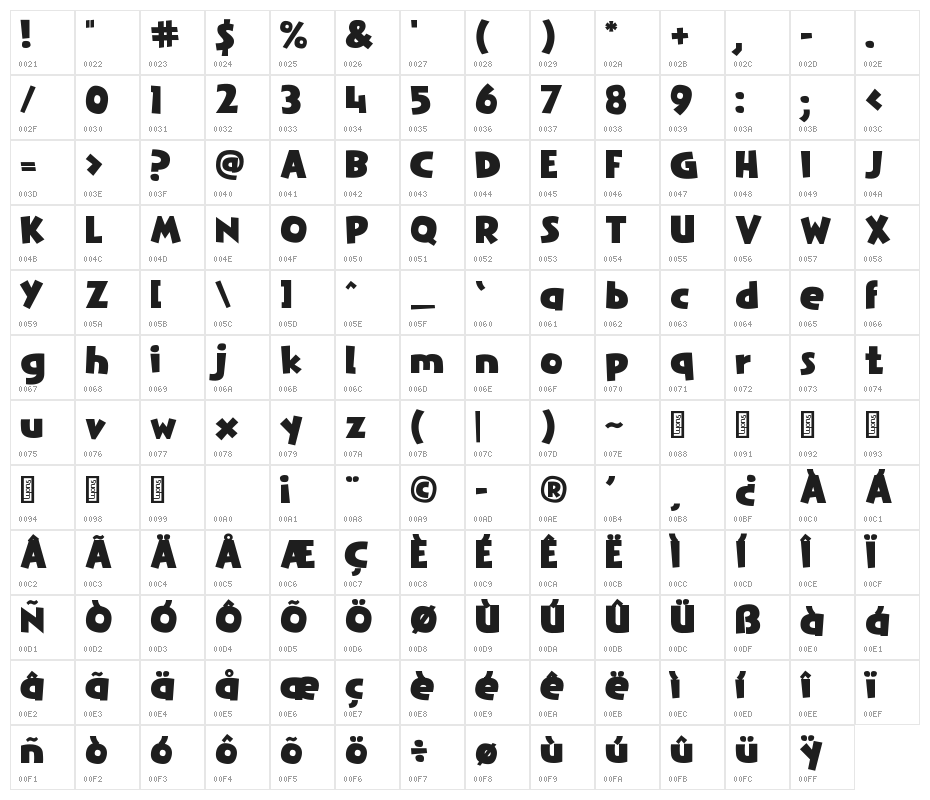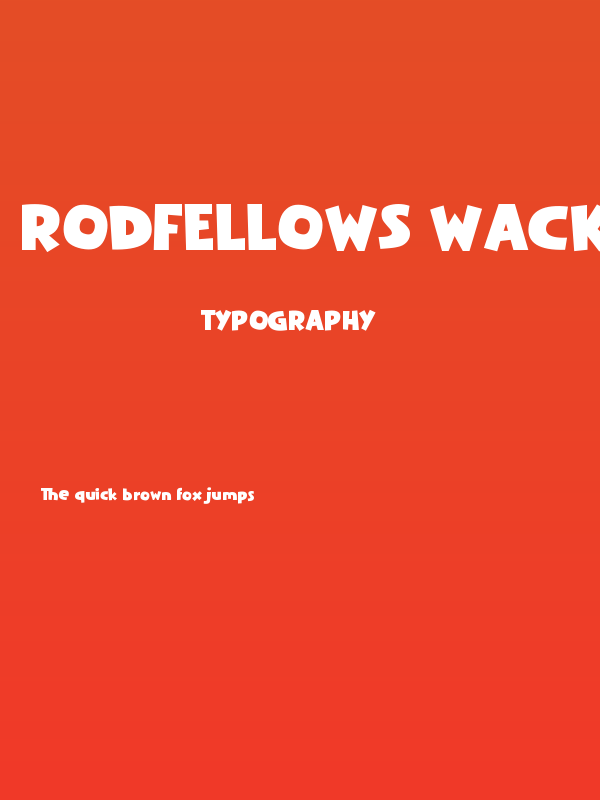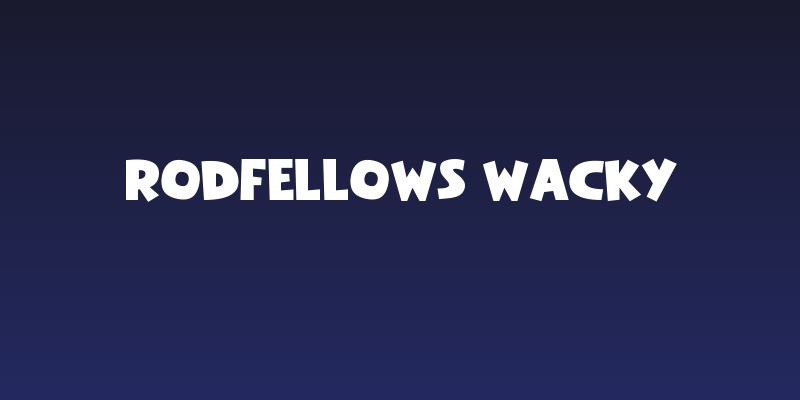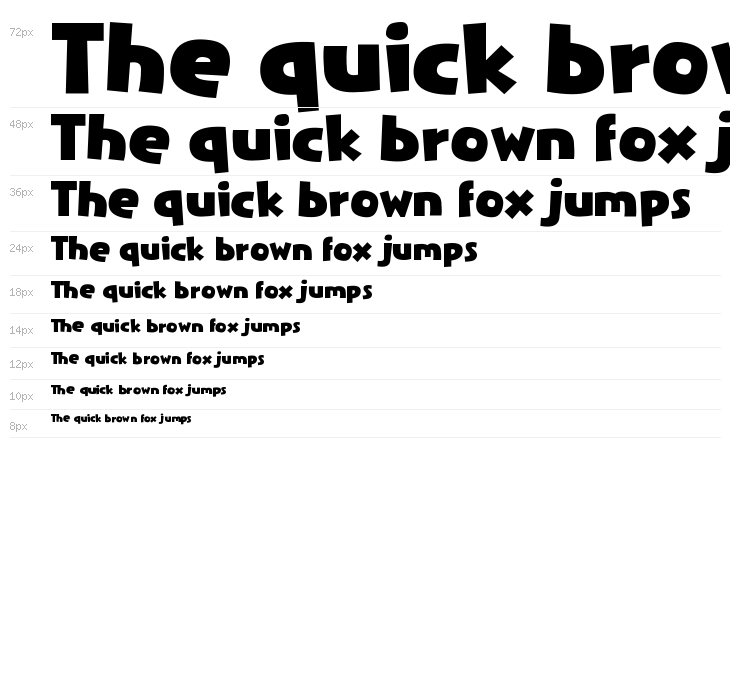
Rodfellows Wacky Font
| Gesamtstil | Whimsical |
| Vorgeschlagene Projekte | Ideal for children's books, comic strips, playful branding, party invitations, and any project needing a fun, whimsical touch. |